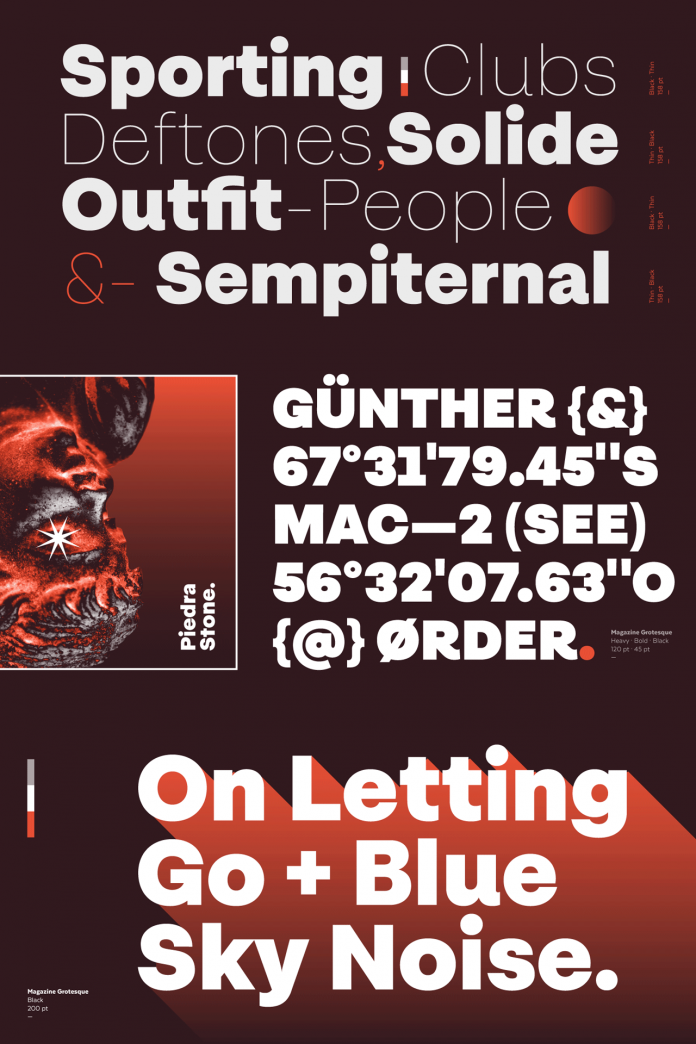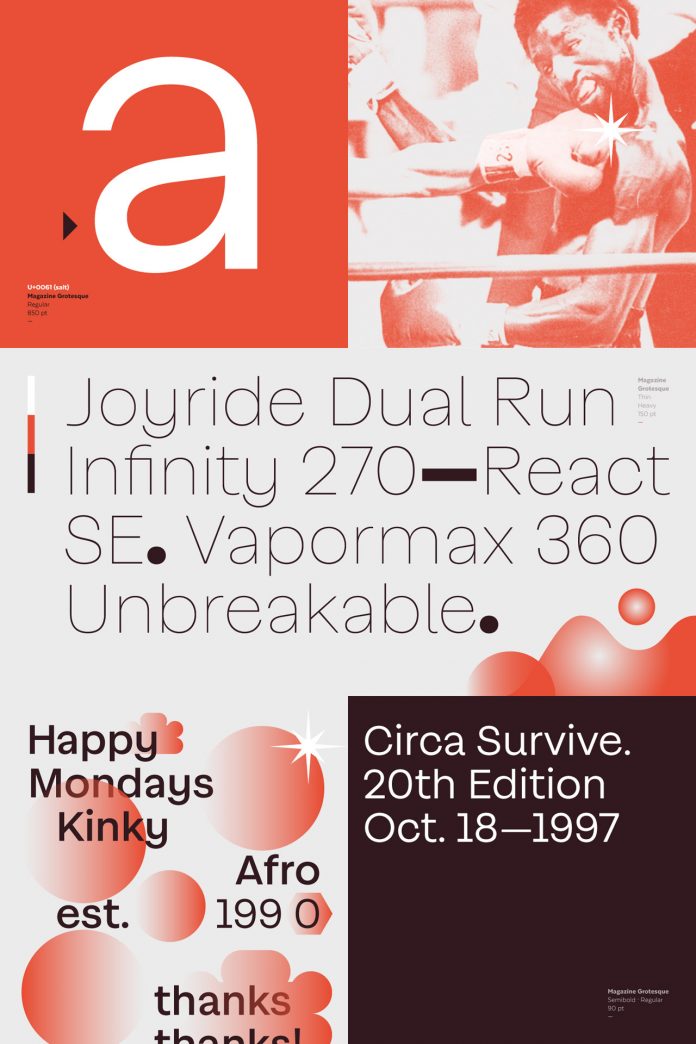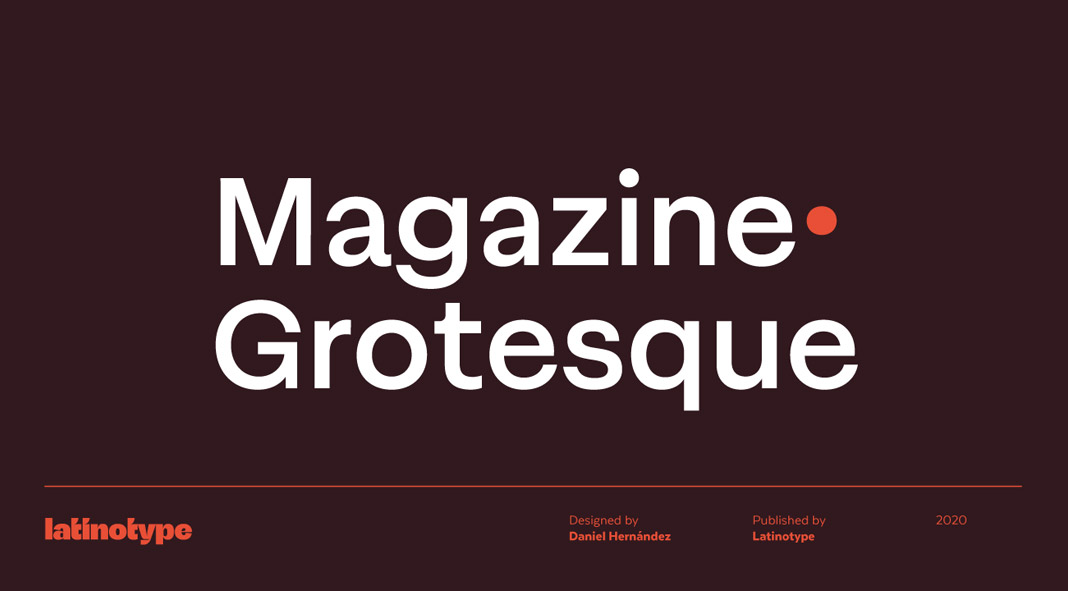
Magazine Grotesque, a sans-serif font family specially designed for headlines and titles.
Designed by Daniel Hernández from 2019 – 2020, Magazine Grotesque is a new sans-serif font family made for display use. The typeface is characterized by many unique features that differentiate the family from traditional Grotesk typefaces. Magazine Grotesque is well suited for headlines and subheadings as well as logotypes or short blocks of text. This family comes with a standard set of 487 characters in order to support more than 200 Latin-based languages.